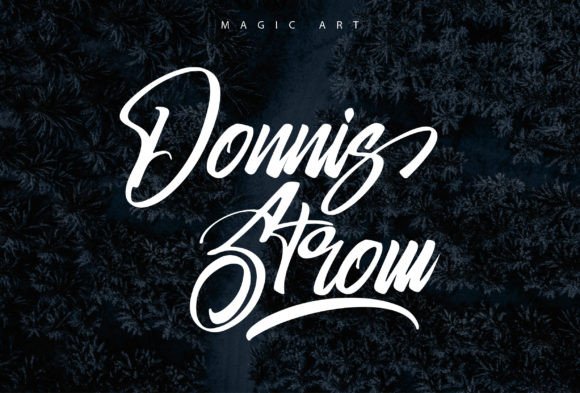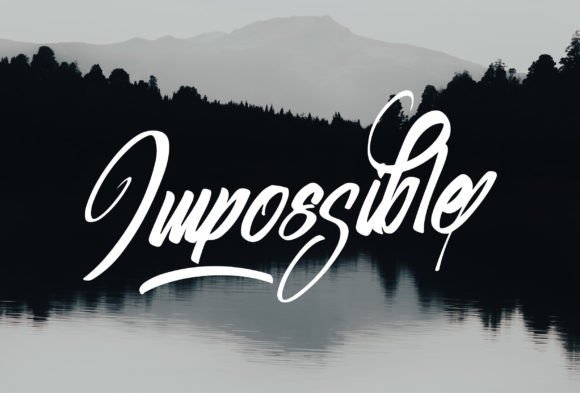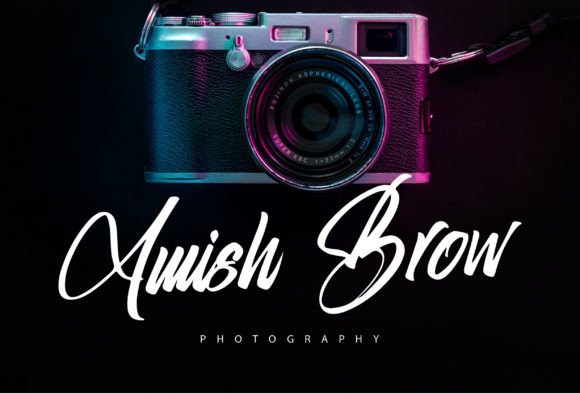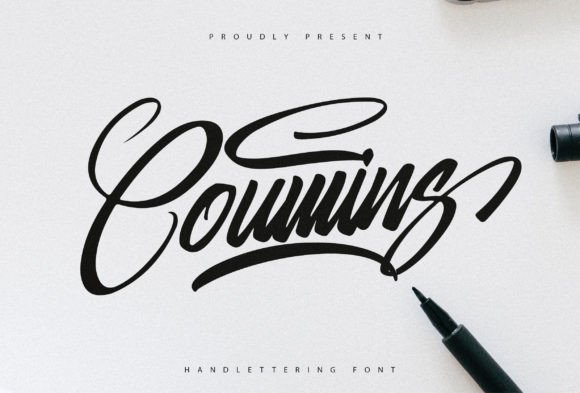
Introduction to Coumins Font
Coumins is an elegant and fashionable handwritten font that is the perfect combination of style and grace.
Each letter is crafted with intricate details, capturing the look and feel of a hand-drawn script With its modern, yet refined design, this font is ideal for high-end fashion branding, invitations, and other projects that require a personal and polished touch.
Key Features of Coumins Font
Why Choose Coumins Font?
Coumins Font offers exceptional quality and versatility, making it a valuable addition to your design toolkit. Whether you’re creating for personal projects or commercial use, Coumins Font delivers professional results.